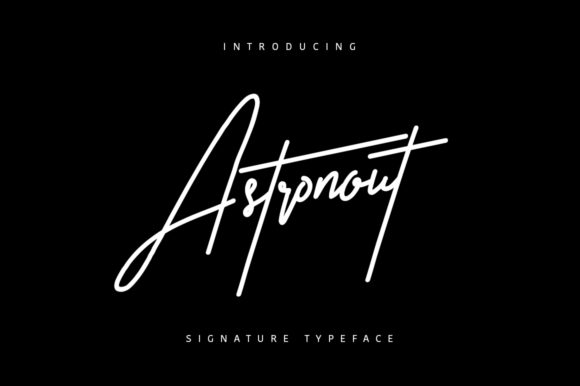
Astronout Font Download Script Fonts: If you’ve been searching for a font that speaks softness, romance, and personality, look no further than Astronout Font. This beautifully handwritten typeface is light, graceful, and filled with emotional depth—perfect for projects that require a personal or heartfelt touch.
Whether you’re a wedding planner designing invitations, a content creator building a dreamy Instagram feed, or a stationery enthusiast looking to elevate your next printable, Astronout brings just the right amount of charm and sophistication.
What Makes Astronout Font Special?
Astronout is a thin and airy script font that feels like a handwritten letter from a loved one. Designed with flowing curves and soft strokes, each character glides effortlessly into the next, giving your text a seamless and natural appearance.
Key Attributes:
✨ Lightweight Strokes – The thin lines make it perfect for elegant designs without overwhelming visuals.
💌 Handwritten Feel – Astronout mimics natural handwriting, making your designs feel personal and handcrafted.
🎨 Versatile Application – Works beautifully on both print and digital mediums.
🌷 Feminine & Romantic Vibe – Ideal for wedding themes, love notes, and artistic projects.
Astronout belongs to the category of modern calligraphy fonts, but it leans more towards the minimalist end, making it an excellent fit for both formal and casual projects.
Where to Use Astronout Font
Astronout is one of those fonts that fits naturally into a wide range of elegant and aesthetic-driven designs. Here are a few of the most popular applications:
💒 Wedding Invitations
The most common use case for Astronout Font is in wedding stationery. Its soft curves and handwritten flow make it perfect for:
Invitation headers
RSVP cards
Save-the-date cards
Table numbers and name cards
📸 Social Media Aesthetics
Lifestyle influencers and content creators love using Astronout for:
Instagram quote posts
Pinterest pins
Highlight covers
Story templates
Its light appearance pairs well with pastel themes, floral photography, and minimalist content.
📝 Personal Branding
If you run a boutique, beauty brand, or handmade goods shop, Astronout adds a personalized touch to your:
Logo designs
Product labels
Thank-you cards
Packaging tags
🎁 Greeting Cards and Stationery
From birthday wishes to thank-you cards and seasonal greetings, Astronout enhances the beauty of any handwritten message—without you having to pick up a pen.
Best Practices for Using Astronout Font in Design
To get the most out of this elegant typeface, follow these tips:
🌸 Use Large Letter Spacing (Tracking) – Give the thin strokes some breathing room. It makes the font easier to read and enhances its aesthetic.
🎨 Stick to Simple Backgrounds – Astronout works best on clean, solid colors or light-textured backdrops.
🌈 Try Subtle Colors – Soft pinks, blush tones, lavender, ivory, and muted golds pair beautifully with the font’s delicate nature.
🖋 Don’t Overuse All Caps – Since Astronout is a script-style font, using all caps can break the handwritten flow. Keep it sentence case or title case for best results.
🖼 Combine with Serif or Sans Fonts – Use Astronout for headings or names and pair it with a clean serif like Playfair Display or a modern sans like Lato for supporting text.
Final Thoughts: Add a Personal Touch With Astronout
In a world flooded with loud, digital fonts, Astronout offers something refreshing: sincerity and softness. It invites viewers to slow down, connect, and appreciate the little details—just like a handwritten note.
Whether you’re creating dreamy visuals for social media, designing a bespoke wedding suite, or adding flair to your brand, Astronout helps your work feel personal and polished.